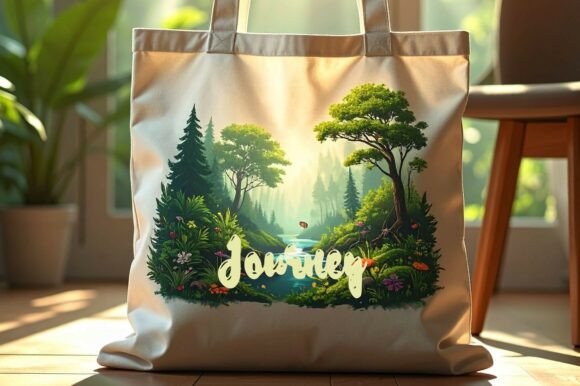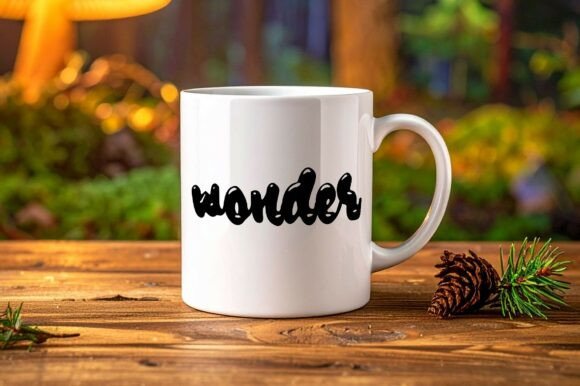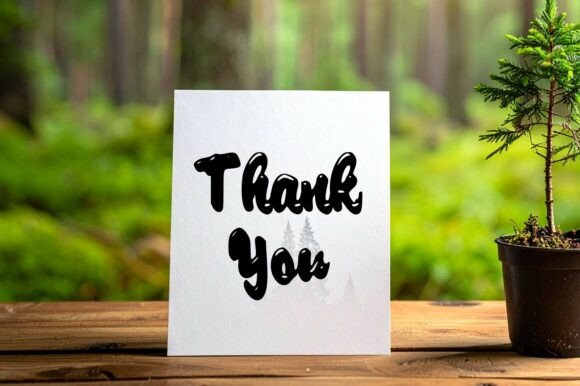
Discover the Organic Enchantment of Caping Gunung Font
Are you on the hunt for a font that embodies the serenity of nature and the thrill of exploration? Look no further than Caping Gunung, a captivating display font that channels the spirit of untamed adventure and eco-centred warmth. This beautifully crafted font is perfect for designers and crafters seeking to add a touch of organic charm to their projects.
The Inspiration Behind Caping Gunung
Caping Gunung is a font that draws inspiration from the natural world. Its curvaceous, whimsically architectural strokes evoke the tender drag of a thoughtful quill across vintage parchment. Each letter is a masterful blend of artistry and elegance, making it perfect for narratives that require a sense of calm exploration and peaceful journeying.
One of the standout features of Caping Gunung is its unmistakable, endearing design. The font’s unique blend of curved lines and whimsical strokes offers maximum legibility, making it easy to read and understand. The typography resonates superbly with elements exuding the peace found in nature, the thrill of exploration, and an unspoilt appreciation for the great outdoors.
Ideal Uses for Caping Gunung
Caping Gunung is an incredibly versatile font that can be used in a variety of contexts. It’s ideal for:
- Children’s literature: The font’s playful, organic design makes it perfect for kids’ books that aim to instil a spirit of environmental stewardship and appreciation for nature.
- Outdoor gear and apparel: If you’re looking to add an organic touch to your brand, Caping Gunung is an excellent choice. The font’s natural, earthy feel makes it perfect for companies that value sustainability and eco-friendliness.
- Travel and tourism: The font’s sense of adventure and exploration makes it ideal for travel companies, tour operators, and travel bloggers looking to evoke a sense of wanderlust and discovery.
Why Choose Caping Gunung?
So why choose Caping Gunung over other fonts? Here are just a few reasons:
- Unique design: Caping Gunung’s distinctive design sets it apart from other fonts. Its blend of curved lines and whimsical strokes creates a truly unique aesthetic that’s sure to capture attention.
- Legibility: Despite its creative design, Caping Gunung offers excellent legibility. This makes it perfect for use in a variety of contexts, from body copy to headlines.
- Versatility: As mentioned earlier, Caping Gunung is an incredibly versatile font. It can be used in everything from children’s literature to outdoor gear branding.
If you’re on the hunt for a font that embodies the spirit of nature and adventure, look no further than Caping Gunung. This beautifully crafted font is perfect for designers and crafters seeking to add a touch of organic charm to their projects. With its unique design, excellent legibility, and versatility, Caping Gunung is sure to become a favourite in your font collection.
Get Creative with Caping Gunung
Ready to unleash your creativity with Caping Gunung? Here are a few ideas to get you started:
- Use Caping Gunung to create a stunning logo for your outdoor gear company.
- Add a touch of whimsy to your children’s book with Caping Gunung’s playful typography.
- Use Caping Gunung to create eye-catching headlines for your travel blog.
Whatever your creative project, Caping Gunung is sure to bring a touch of organic magic to your designs.